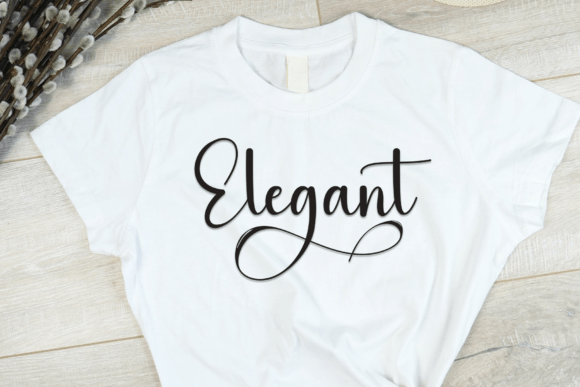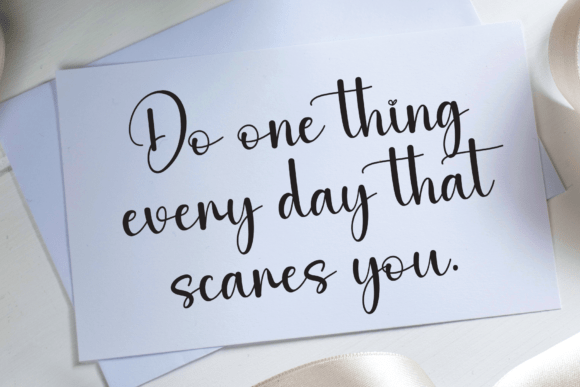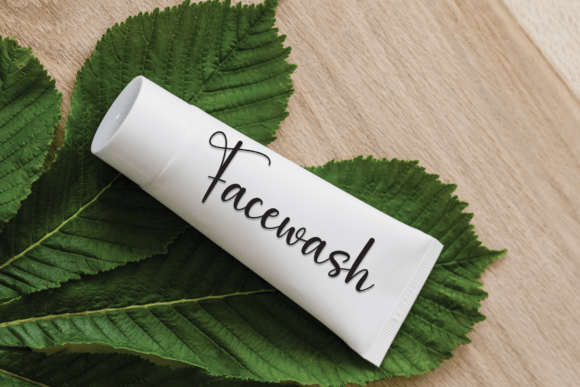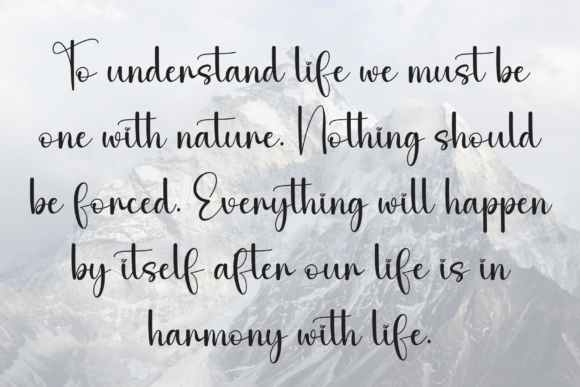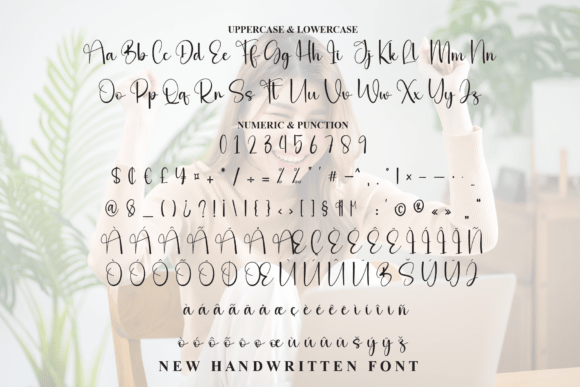
Introducing Delighter Font: Elevate Your Designs with Elegance and Sophistication
In the world of typography, a well-crafted font can make all the difference in transforming a design from ordinary to extraordinary. Delighter Font is a stunning script font that embodies the perfect blend of elegance and contemporary charm, making it an ideal choice for designers and crafters looking to add a touch of sophistication to their projects.
The Beauty of Delighter Font
Delighter Font boasts graceful strokes, fluid curves, and meticulously designed letterforms that capture the essence of hand-drawn calligraphy with a modern twist. This stylish script font is perfect for a wide range of design applications, including logos, invitations, packaging, and social media graphics. Its natural flow and polished details make it an excellent choice for designers seeking to add a refined and sophisticated touch to their work.
Key Features of Delighter Font
- Elegant and Contemporary Design: Delighter Font features a unique blend of traditional calligraphy and modern typography, making it perfect for designers looking to create stunning and eye-catching designs.
- Versatile and Adaptable: This font is suitable for a wide range of design projects, from logos and branding materials to invitations, packaging, and social media graphics.
- Highly Legible: Delighter Font is designed to be highly legible, even at smaller font sizes, making it perfect for use in body text or captions.
- Extensive Character Set: This font features an extensive character set, including uppercase and lowercase letters, numbers, and punctuation marks, ensuring that you have everything you need to create beautiful designs.
Uses of Delighter Font
Delighter Font is an incredibly versatile font that can be used in a variety of design applications. Here are some ideas to get you started:
- Logos and Branding: Use Delighter Font to create stunning logos and branding materials that exude elegance and sophistication.
- Invitations and Stationery: Add a touch of refinement to your invitations, wedding cards, and stationery with this beautiful script font.
- Packaging Design: Use Delighter Font to create eye-catching packaging designs that stand out on store shelves.
- Social Media Graphics: Elevate your social media graphics with Delighter Font, perfect for creating stunning posts, banners, and ads.
Tips for Using Delighter Font
To get the most out of Delighter Font, here are some tips to keep in mind:
- Experiment with Font Sizes: Delighter Font looks stunning at larger font sizes, but it can also be used effectively at smaller sizes. Experiment with different font sizes to find the perfect fit for your design.
- Pair with Other Fonts: Delighter Font pairs beautifully with other fonts, including sans-serif and serif fonts. Experiment with different font combinations to find the perfect match for your design.
- Use in Combination with Images: Delighter Font looks stunning when used in combination with images. Experiment with different image and font combinations to create visually appealing designs.
Delighter Font is a stunning script font that offers a unique blend of elegance and contemporary charm. With its natural flow, polished details, and extensive character set, it’s the perfect choice for designers and crafters looking to add a refined and sophisticated touch to their designs. Whether you’re creating logos, invitations, packaging, or social media graphics, Delighter Font is sure to deliver both versatility and visual appeal.